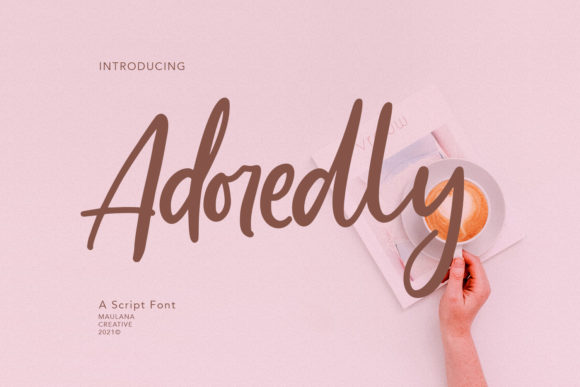
The Adoredly Script Font: A Designer’s New Best Friend
I’ll never forget the time I was working on a project for a client who wanted a font that was both elegant and laid-back. I scoured the internet, tried out countless fonts, but nothing seemed quite right. That was until I stumbled upon Adoredly Script. This beautiful, handwritten font has been a game-changer for my design projects, and I’m excited to share its awesomeness with you! 😊
An Honest Review of Adoredly Script
- ✨ Unique and eye-catching style: Adoredly Script has a one-of-a-kind, flowing design that adds a touch of personality to any project.
- ✅ Versatility: Whether you’re working on a logo, branding materials, or social media graphics, this font adapts seamlessly.
- 💫 Elegant yet laid-back: The perfect balance of sophistication and casual charm, making it suitable for a wide range of topics and industries.
While Adoredly Script is an amazing font, there are a few things to keep in mind:
- 🤔 Legibility at small sizes: Like many script fonts, Adoredly Script can be a bit tricky to read at very small sizes. Make sure to test it out at different sizes to ensure it’s legible for your project.
- ⚠️ Overuse: As with any font, using Adoredly Script excessively can make your design look cluttered. Balance it with other fonts or whitespace to create visual harmony.
- Experiment with OpenType features like ligatures and stylistic alternates to add visual interest.
The Story Behind Adoredly Script
Adoredly Script was designed with the intention of creating a font that was both elegant and approachable. The designer aimed to craft a font that would be perfect for a wide range of projects, from formal events to casual social media posts. With its unique blend of sophistication and laid-back charm, Adoredly Script has become a favorite among designers and crafters alike.
Q: What type of projects is Adoredly Script best suited for?
A: Adoredly Script is versatile and can be used for a wide range of projects, including logos, branding materials, social media graphics, and more.